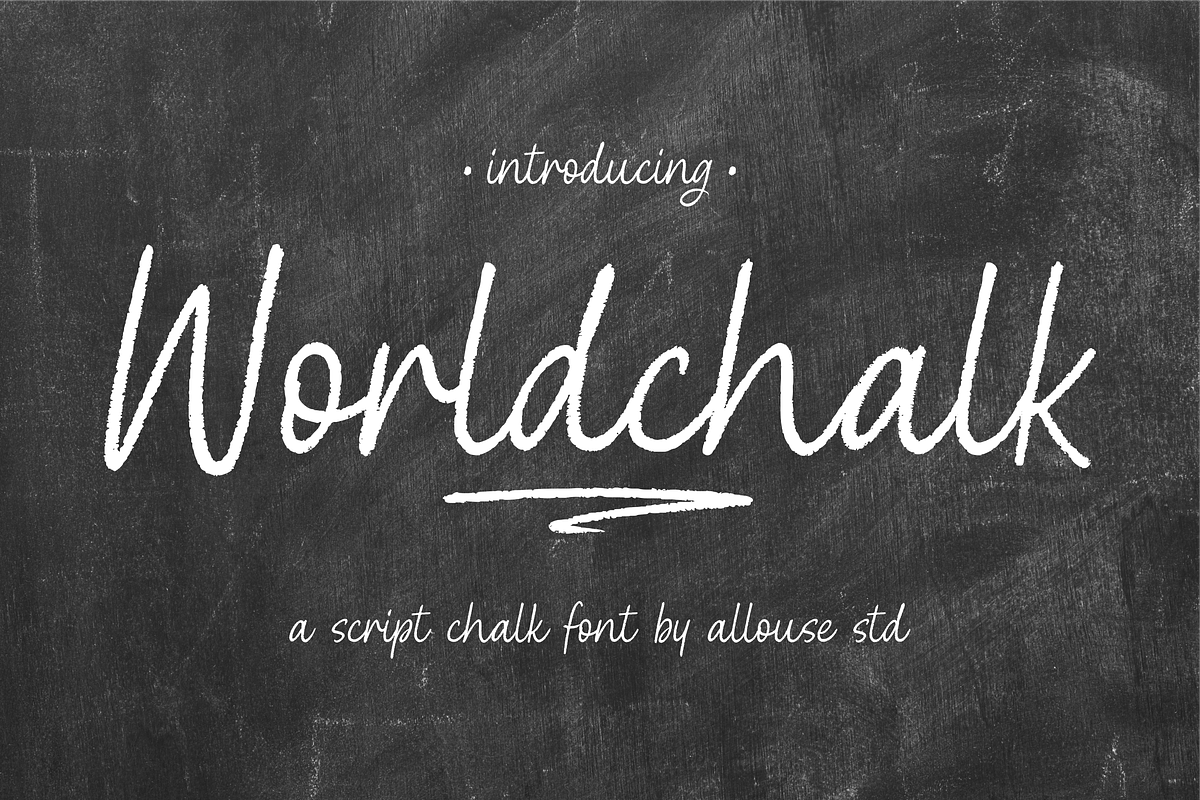
Worldchalk Script Chalk Font Free Download is a playful, hand-drawn typeface that mimics the texture and charm of real chalk writing. With its flowing script style and rough edges, this font is perfect for classroom materials, café menus, quote boards, event signage, and any design that needs a fun, handmade look.
It brings a nostalgic, creative vibe—like writing on a blackboard with personality. Whether you're designing for back-to-school campaigns, DIY projects, or friendly branding, Worldchalk makes your message feel warm, welcoming, and whimsical.
Its natural script flow and chalky texture give your designs a dynamic and tactile feel across both digital and print formats.